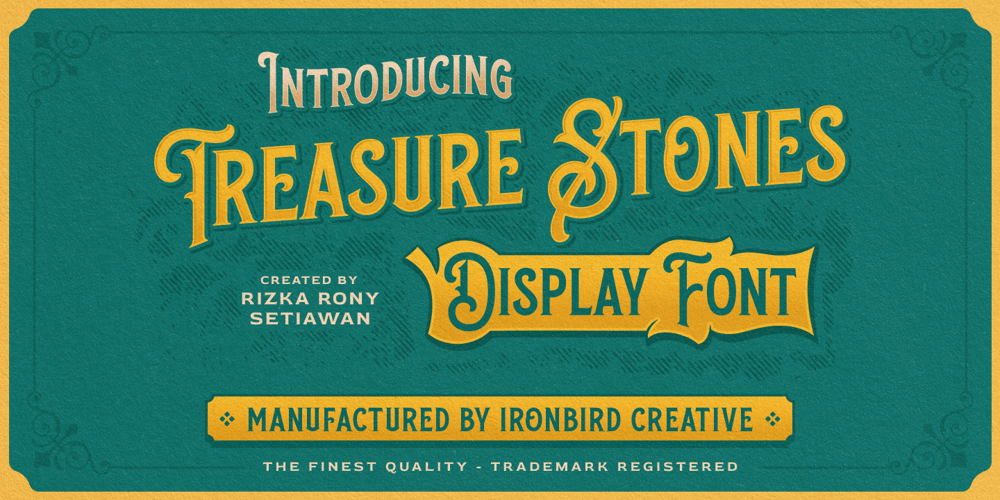
Treasure Stones Font Family was designed by Septianto Nugroho and published by Ironbird Creative. Treasure Stones contains 1 styles and family package options. Treasure Stones is a display typeface which is inspired by vintage lettering sign and art. While this font has a victorian touch, it still looks bold and solid. Very suitable for for headline, logotype, apparel, invitation, branding, packaging, advertising etc with old school / vintage theme.We hope you enjoy the font, please feel free to comment if you have any thoughts or feedback. Thanks for purchasing and have fun!Regards,Ironbird Creative